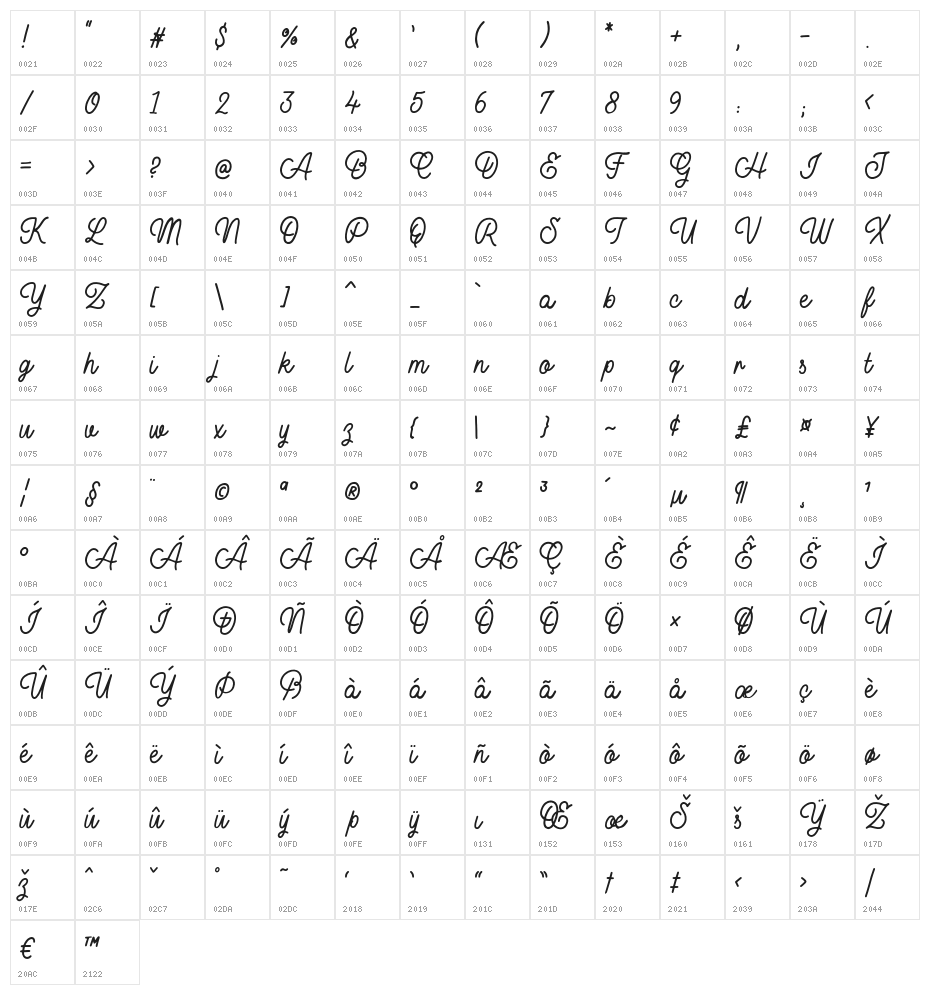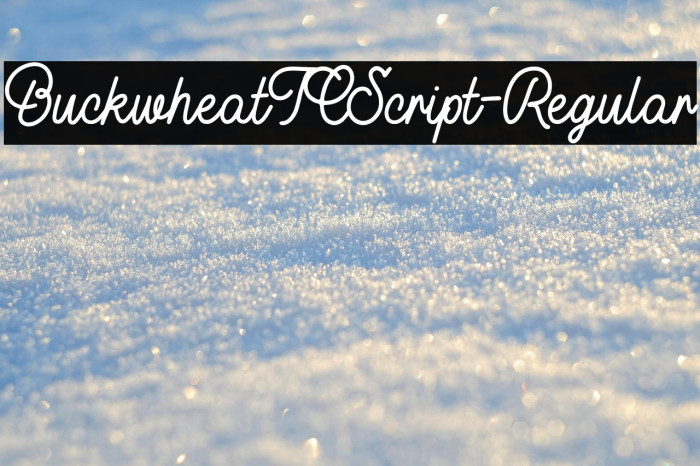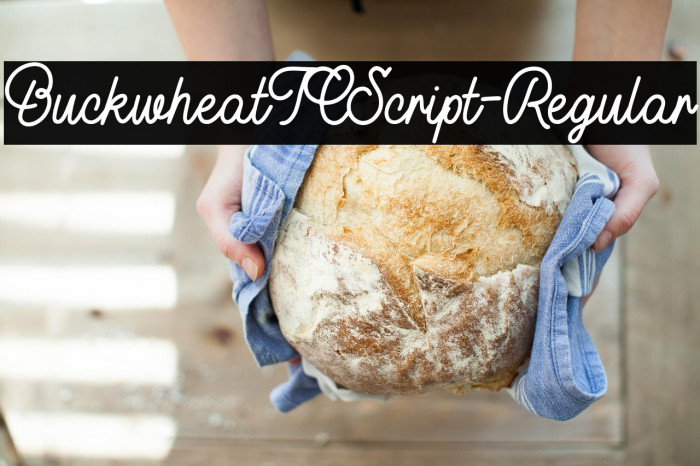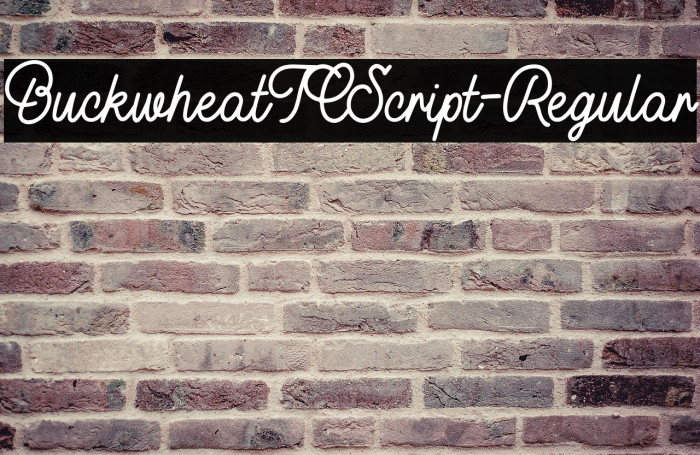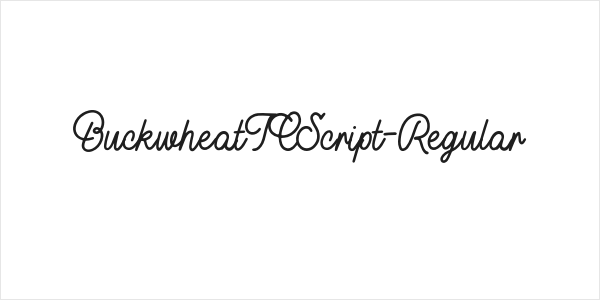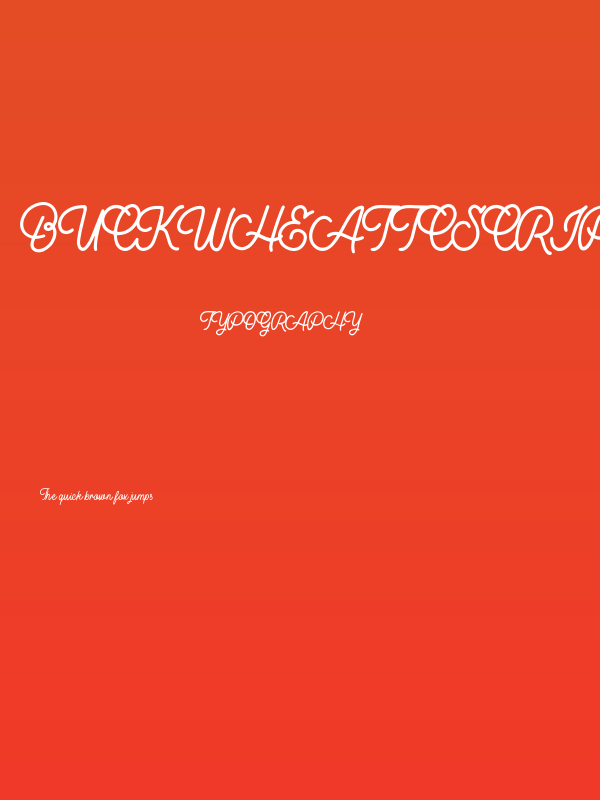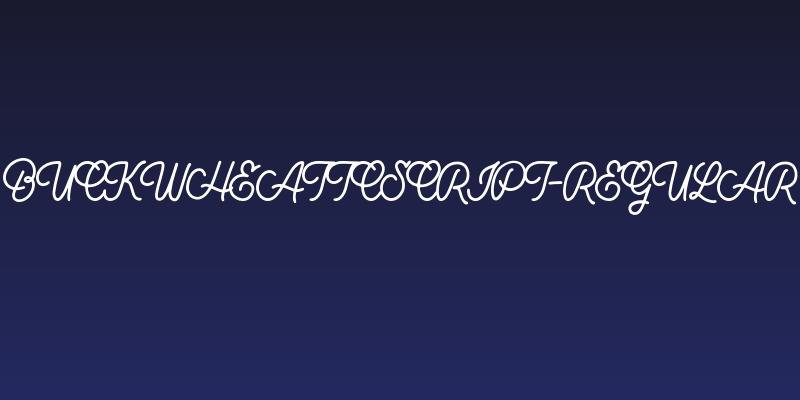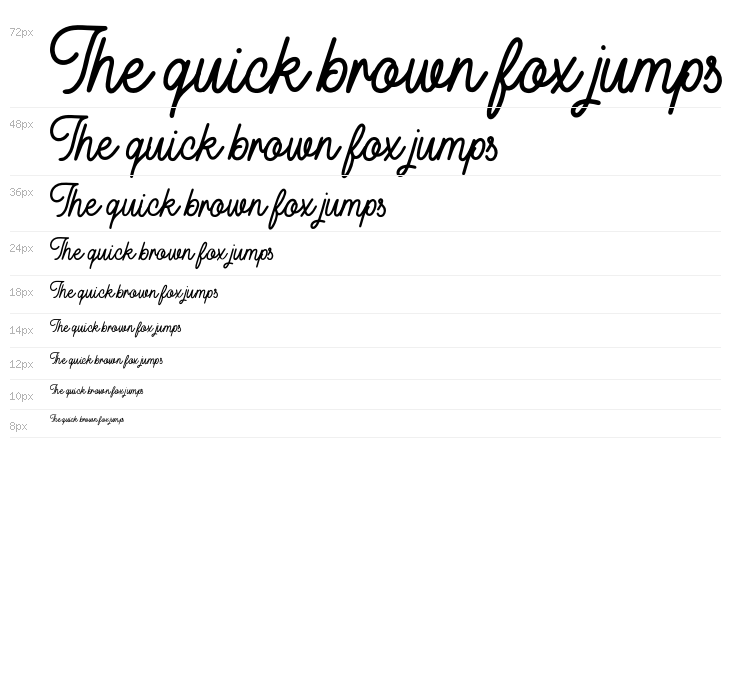
BuckwheatTCScript-Regular Font
BuckwheatTCScript-Regular Description
This font exudes a playful and elegant script style, characterized by its fluid and connected letterforms. Each character flows seamlessly into the next, creating a harmonious and continuous line that mimics natural handwriting. The uppercase letters are bold and slightly more ornate, while the lowercase letters maintain a consistent and smooth appearance. The numerals and special characters are crafted with the same attention to detail, ensuring a cohesive look across all elements. The font's overall appearance is both sophisticated and approachable, making it suitable for a variety of creative applications.
| Use Case | Logos, Invitations, Decorative Text |
| Proposed Projects | Ideal for wedding invitations, greeting cards, personal branding, and decorative signage. |